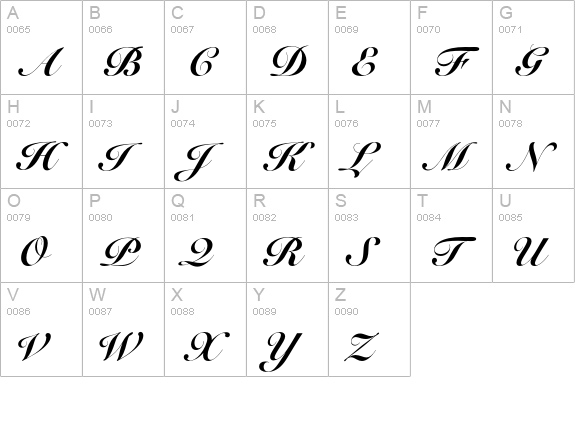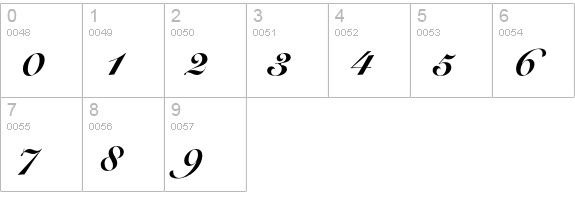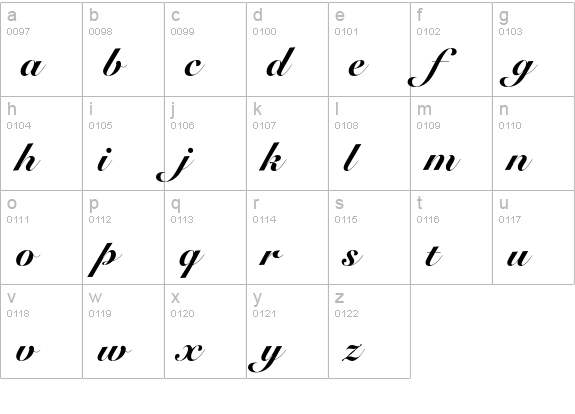
Snell Black is a maximum-weight, dramatic variant in the Snell typeface family \xE2\x80\x94 well suited to maximum-impact headlines, posters, and packaging.
Snell Black font is a modern and sophisticated typeface that exudes elegance and professionalism. With its bold and sleek letterforms, this font is perfect for creating eye-catching headlines, logos, and branding materials. Its strong presence on the page commands attention and leaves a lasting impression. The Snell Black font strikes the perfect balance between classic and contemporary design, making it versatile for a wide range of projects. Whether you're designing a magazine layout, a website, or a promotional flyer, this font will add a touch of sophistication and style. What sets Snell Black font apart is not just its impeccable design, but also its accessibility. This font is now available for free download at FontsMarket.com, making it easily accessible to designers and creatives alike. By offering this font for free, it allows everyone to have the opportunity to elevate their designs without any cost. With Snell Black font, you can convey a sense of professionalism and class without compromising on creativity. Its bold and confident look will make your designs stand out from the crowd, leaving a lasting impression on viewers. Whether you're a professional designer or an aspiring creative, Snell Black font is a must-have in your typographic toolkit. Download Snell Black font for free today at FontsMarket.com and unlock a world of design possibilities. Embrace the elegance and sophistication that this font brings to your projects. Elevate your typography and make a lasting impression with Snell Black font.